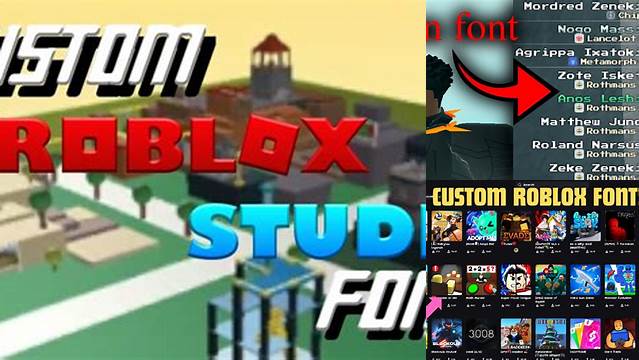
Add Custom Fonts To Roblox Studio: A Simple Guide
Have you ever wanted to make your Roblox game stand out with unique and stylish fonts? Well, you're in the right place! This guide will walk you through how to get custom fonts in Roblox Studio. We'll cover everything from finding the perfect font to importing it and using it in your game. Let's dive in!
1. Understanding Roblox Font Limitations
Before we jump into the fun part, it's crucial to understand the limitations Roblox has when it comes to fonts. Roblox Studio doesn't support every single font format out there. It primarily works with .ttf (TrueType Font) and .otf (OpenType Font) files. Keep this in mind when you're searching for custom fonts, guys. Trying to use other formats will just lead to frustration, and nobody wants that, right? So, stick to .ttf and .otf to keep things smooth and easy.
Also, remember that while you can use custom fonts, they need to be relatively simple and optimized for performance. Super intricate or heavy fonts can slow down your game, especially on lower-end devices. This is because the game needs to render each character, and complex fonts require more processing power. Think about your target audience and the devices they'll be using to play your game. A cool-looking font isn't worth it if it makes the game laggy and unplayable. Performance is key, so choose wisely!
2. Finding the Right Custom Font for Your Game
Finding the right custom font is like choosing the perfect outfit for your game – it sets the tone and enhances the overall aesthetic. There are tons of websites where you can download fonts, but not all of them are created equal. Some popular and reliable sites include Google Fonts, DaFont, and Font Squirrel. Google Fonts is a great place to start because it offers a wide variety of free, open-source fonts that are safe to use in your projects. DaFont has a massive collection of fonts, but make sure to check the license before using them commercially. Font Squirrel also offers high-quality fonts and provides clear licensing information.
When browsing these sites, consider the style of your game. Are you creating a spooky horror game? Then a creepy, handwritten-style font might be perfect. Or are you building a futuristic sci-fi world? Then a sleek, modern font would be more appropriate. Think about the mood you're trying to create and choose a font that complements that. Don't just pick a font because it looks cool; make sure it fits the overall theme of your game. Visual consistency is super important for creating an immersive experience.
Also, keep readability in mind. A fancy font might look great, but if players can't easily read the text in your game, it's not a good choice. Prioritize fonts that are clear and easy to read, especially for important information like instructions or dialogue. Usability should always come first. Consider testing different fonts with your target audience to get their feedback. What looks good to you might not be as appealing to others, so it's always good to get a second opinion. And remember, the right custom font can make a huge difference in how players perceive your game!
3. Downloading and Preparing Your Font File
After extracting the font file, it's a good idea to rename it to something simple and descriptive. This will make it easier to find and use in Roblox Studio. For example, instead of "CoolFont-Regular.ttf," you could rename it to "CoolFont.ttf." Keep it short and sweet! This will save you time and confusion later on. Trust me, when you have a bunch of different fonts, clear naming conventions become a lifesaver.
Before importing the font into Roblox Studio, make sure the file is actually a valid font file. Sometimes, downloads can get corrupted, and you might end up with a file that doesn't work. You can double-check this by opening the font file on your computer. If it opens in a font viewer or allows you to install it, then it's likely a valid font file. If it doesn't open or gives you an error, try downloading it again from the source. This simple check can save you a lot of troubleshooting later on. And always keep a backup of your font files in case something goes wrong. Better to be prepared, right?
4. Importing the Font into Roblox Studio
Now for the exciting part: importing your custom font into Roblox Studio! First, open up Roblox Studio and navigate to the "View" tab. From there, click on "Explorer" to open the Explorer window. This window is where you'll see all the objects in your game, including the font you're about to import.